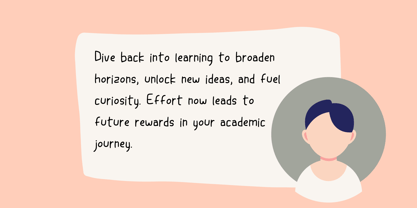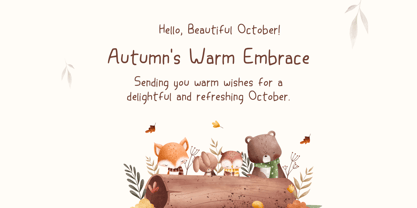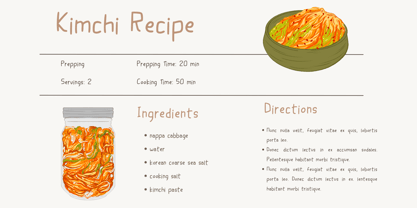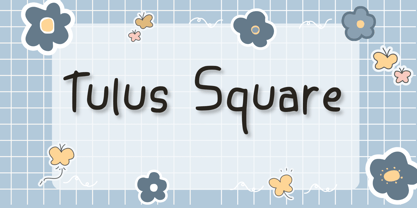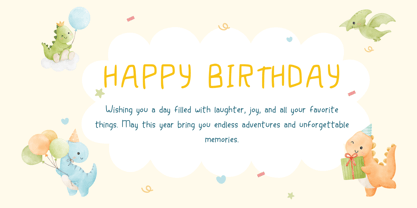
Tulus Square
by Aisyah
The Tulus Square Font Family was designed by Nur Aiysah Amalia and published by Aisyah. Tulus Square contains 1 styles. More about this family
Introducing Tulus Square, a charming and sleek handwriting font. Exuding cuteness while carrying a distinct coolness, it perfectly complements creative escapades and extensive text projects. This inventive script lends an engaging visual rhythm to your designs, ensuring both legibility and aesthetic appeal. Unleash your creativity with Tulus Square.
Designers: Nur Aiysah Amalia
Foundry: Aisyah